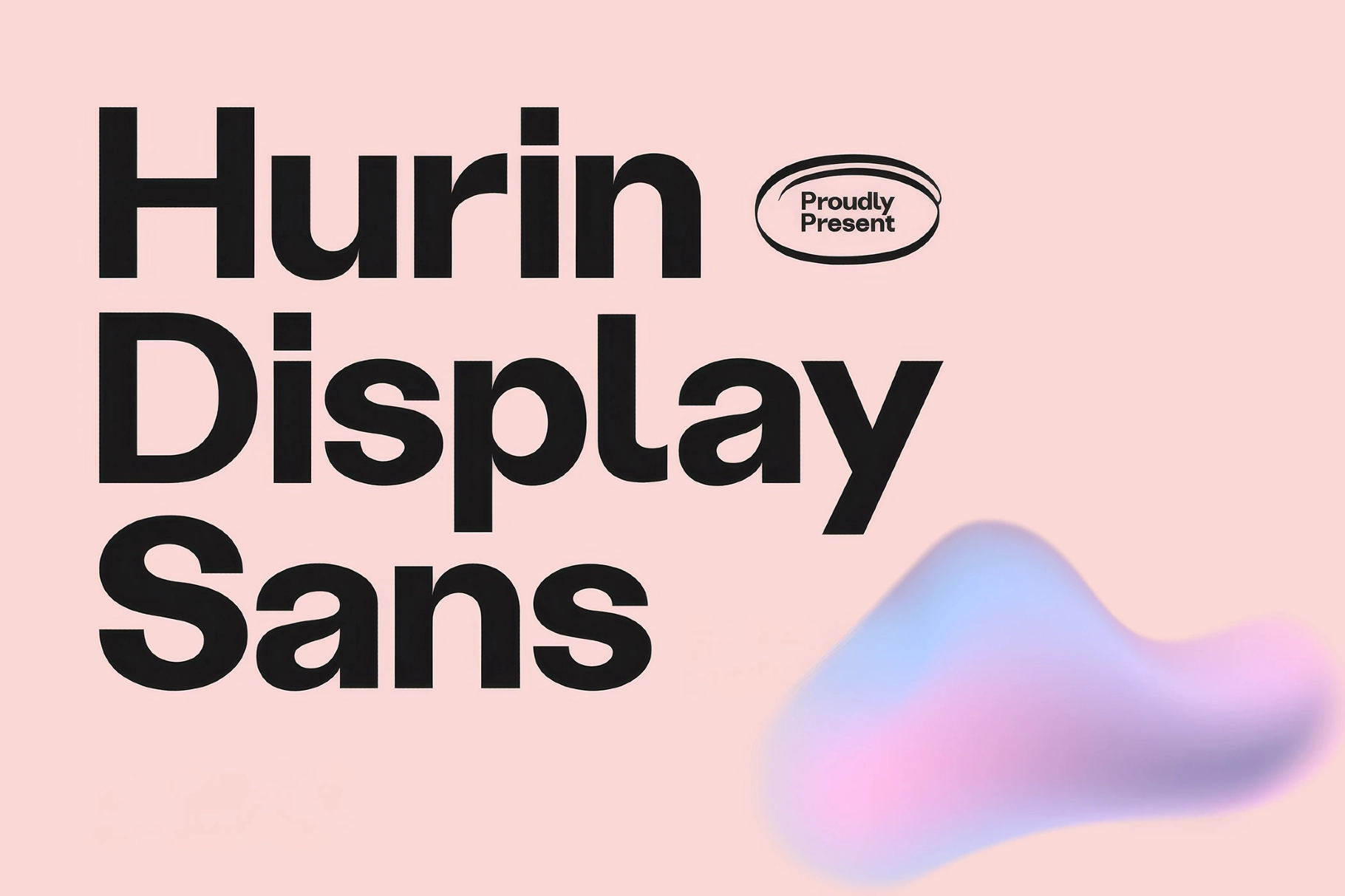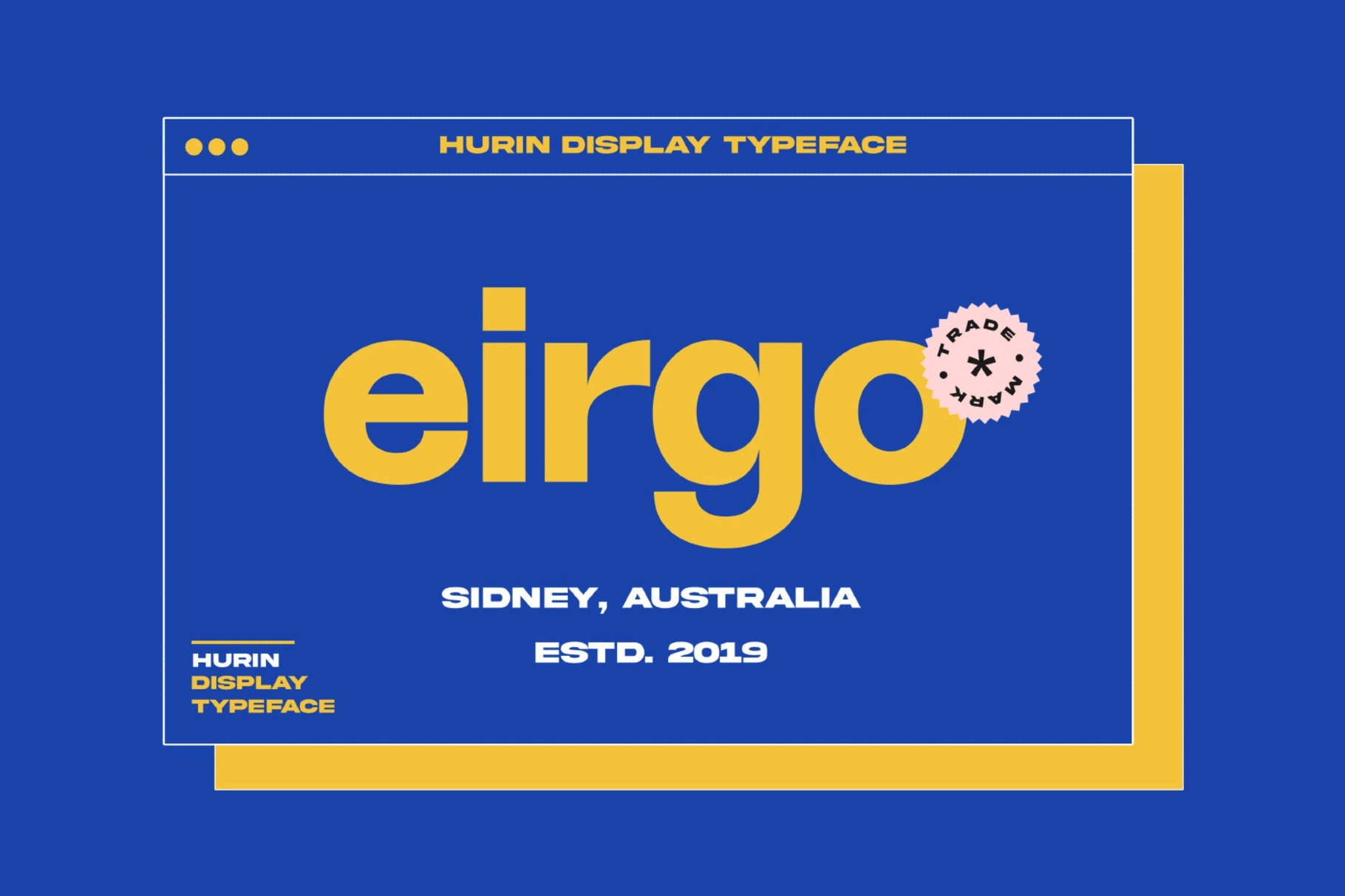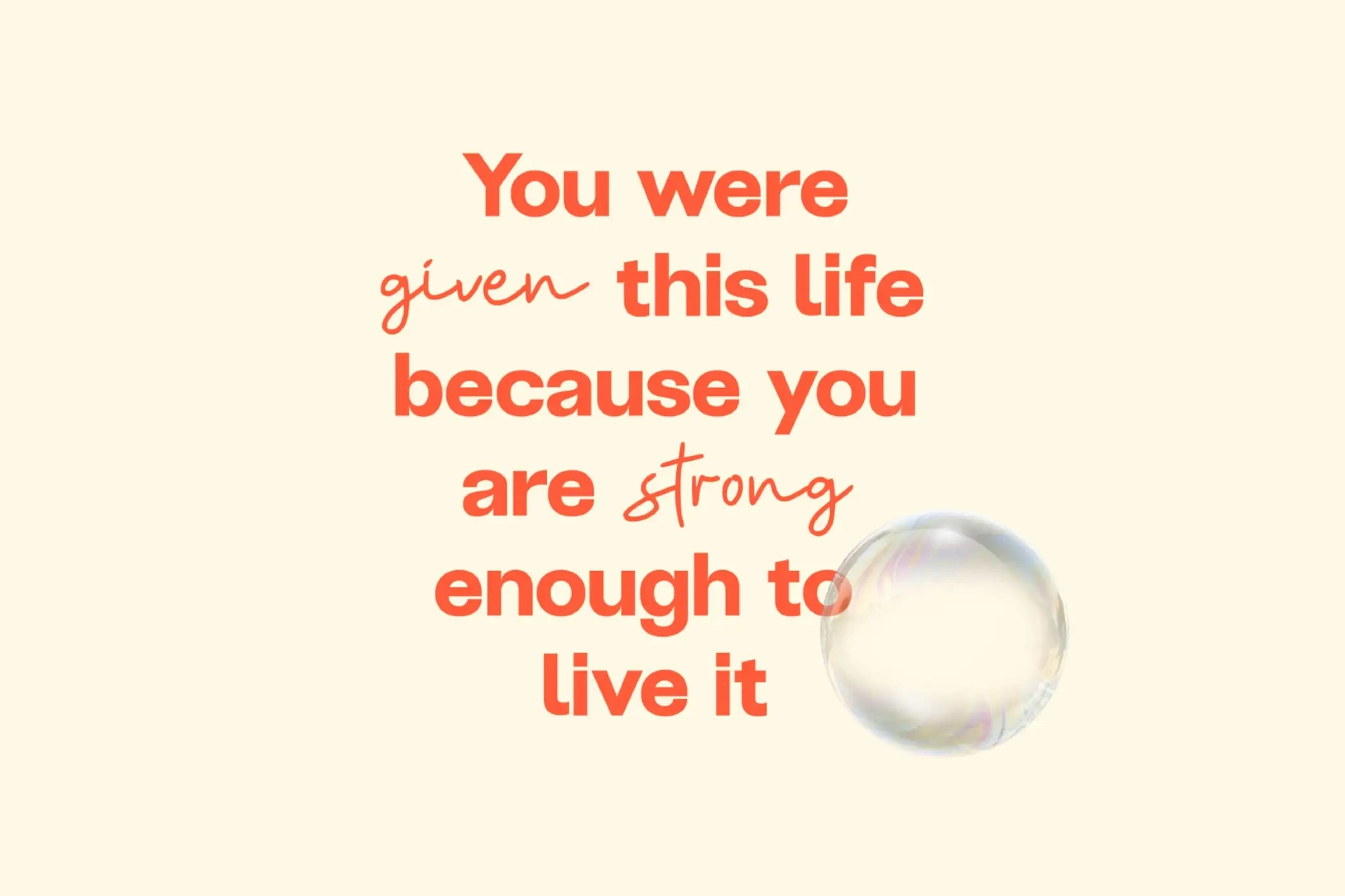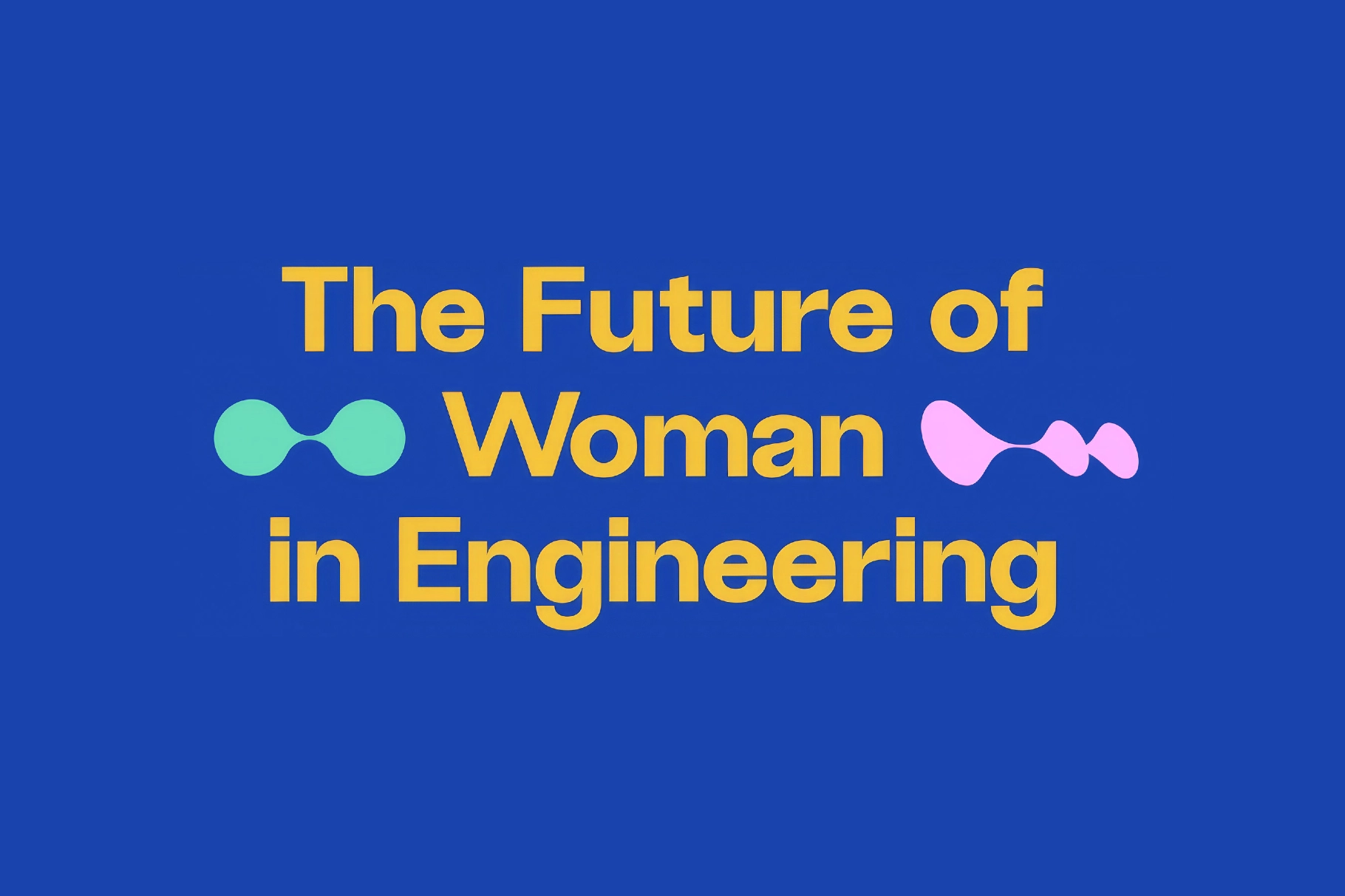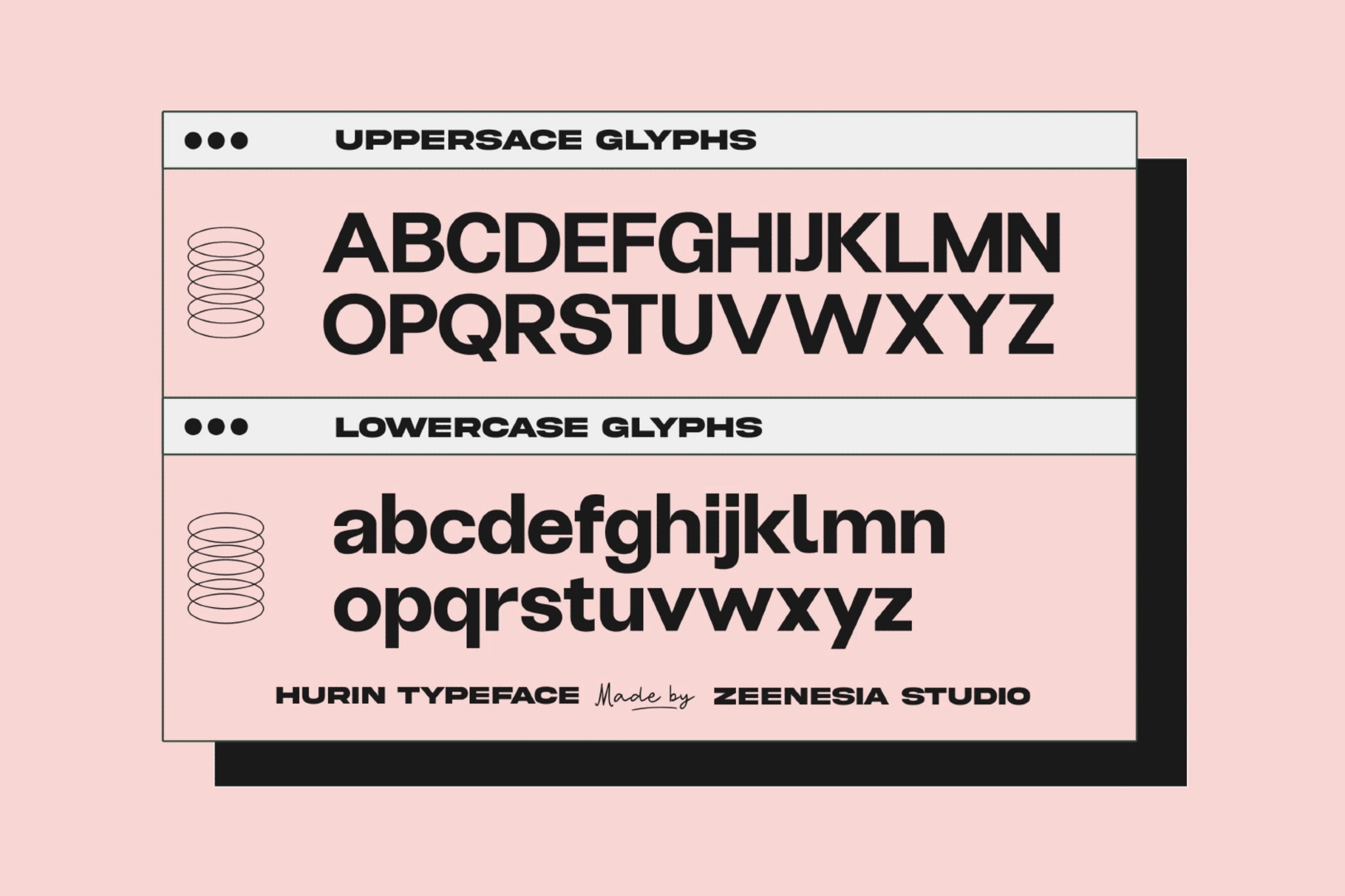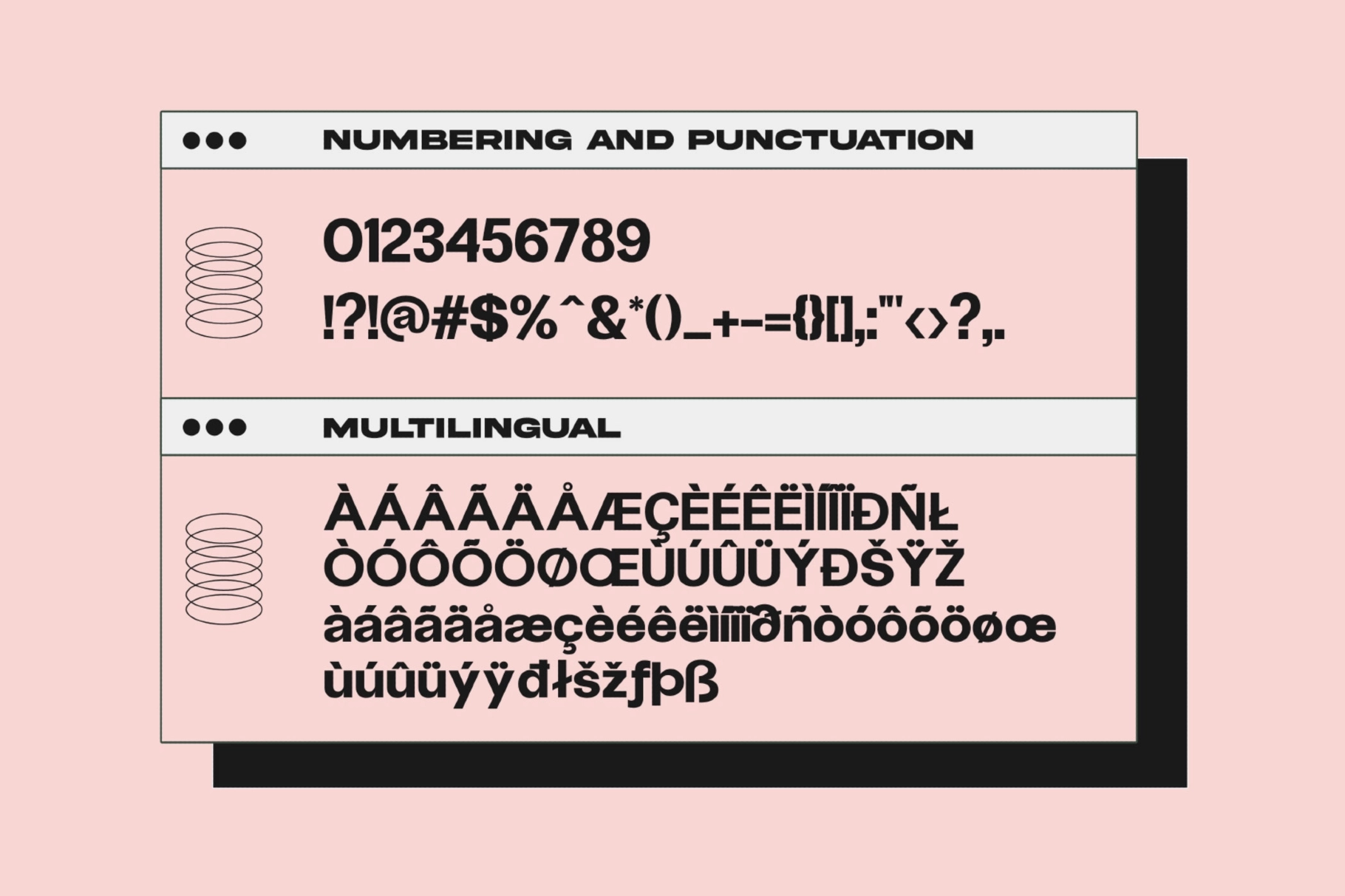
Hurin — Geometric Sans Serif Logo Font
Hurin keeps its letterforms geometric and open, with smooth curves and even stroke widths that hold their shape from a business card down to a small icon — a geometric sans serif font built for marks and short-form branding rather than long paragraphs.
Hurin works best in short settings: wordmarks, headline treatments, single lines of packaging copy. Use it for logos, product labels, invitations, editorial headlines, social branding, product mockups, and posters.
- Uppercase & lowercase;
- Numerals & punctuation;
- Latin Extended character support